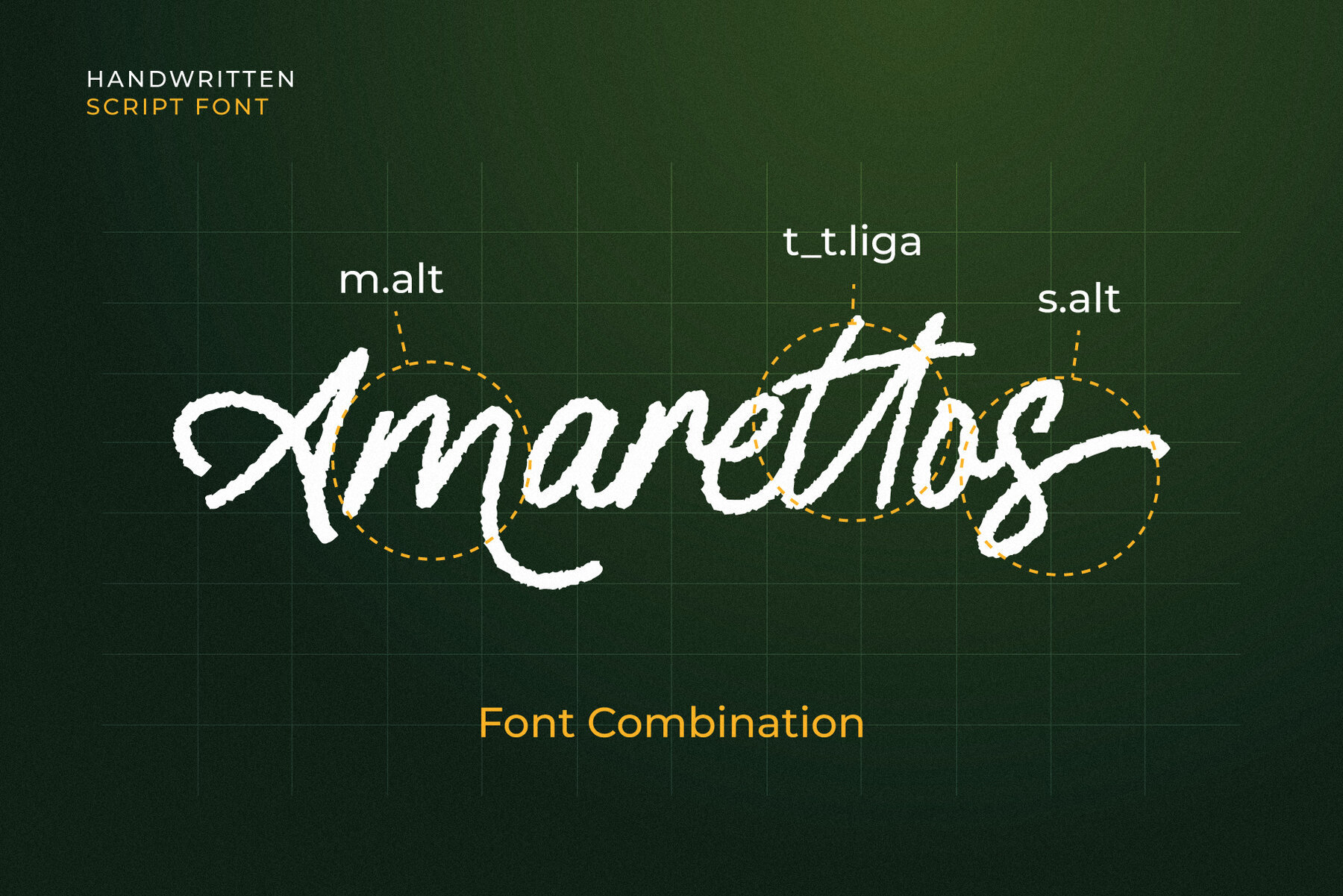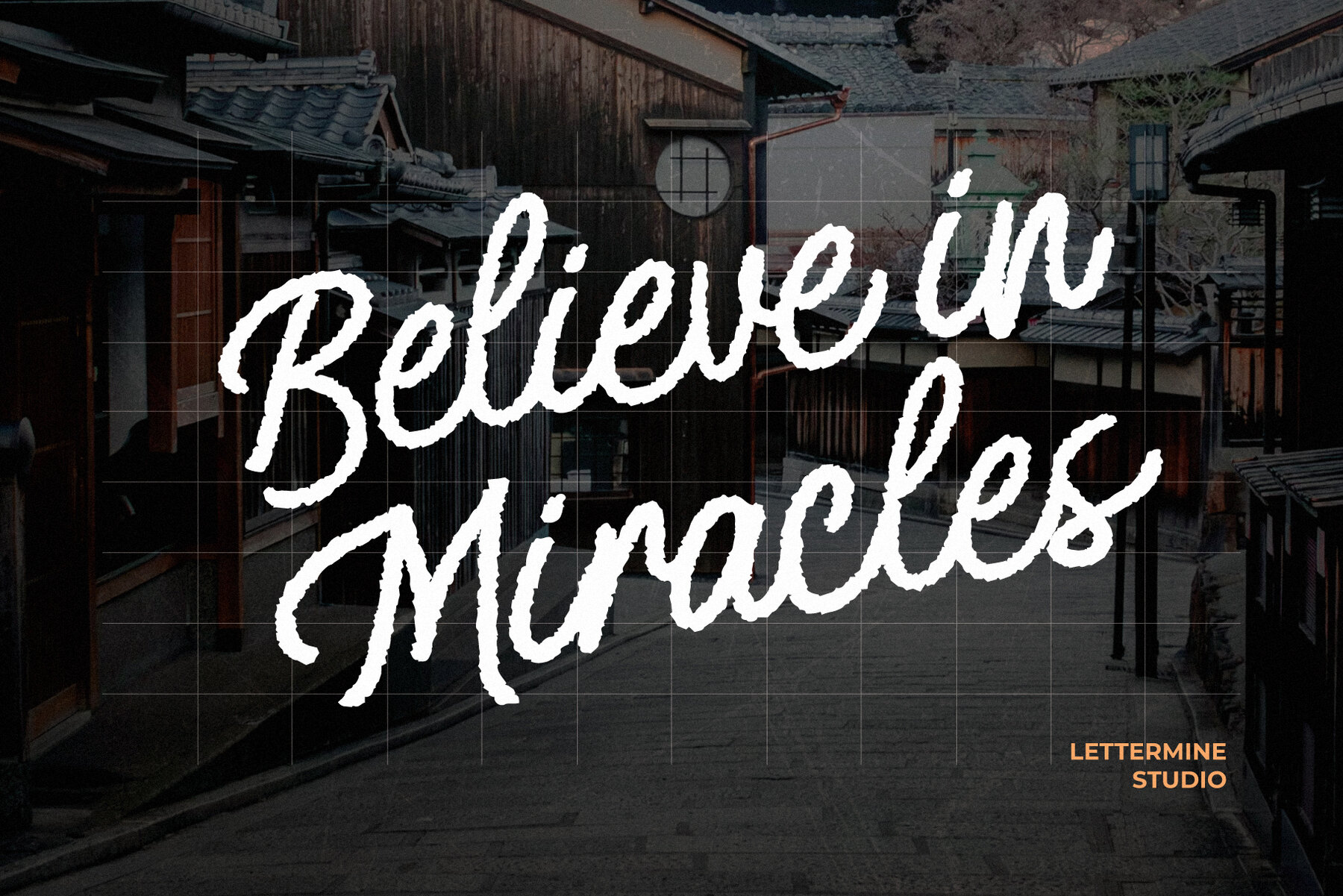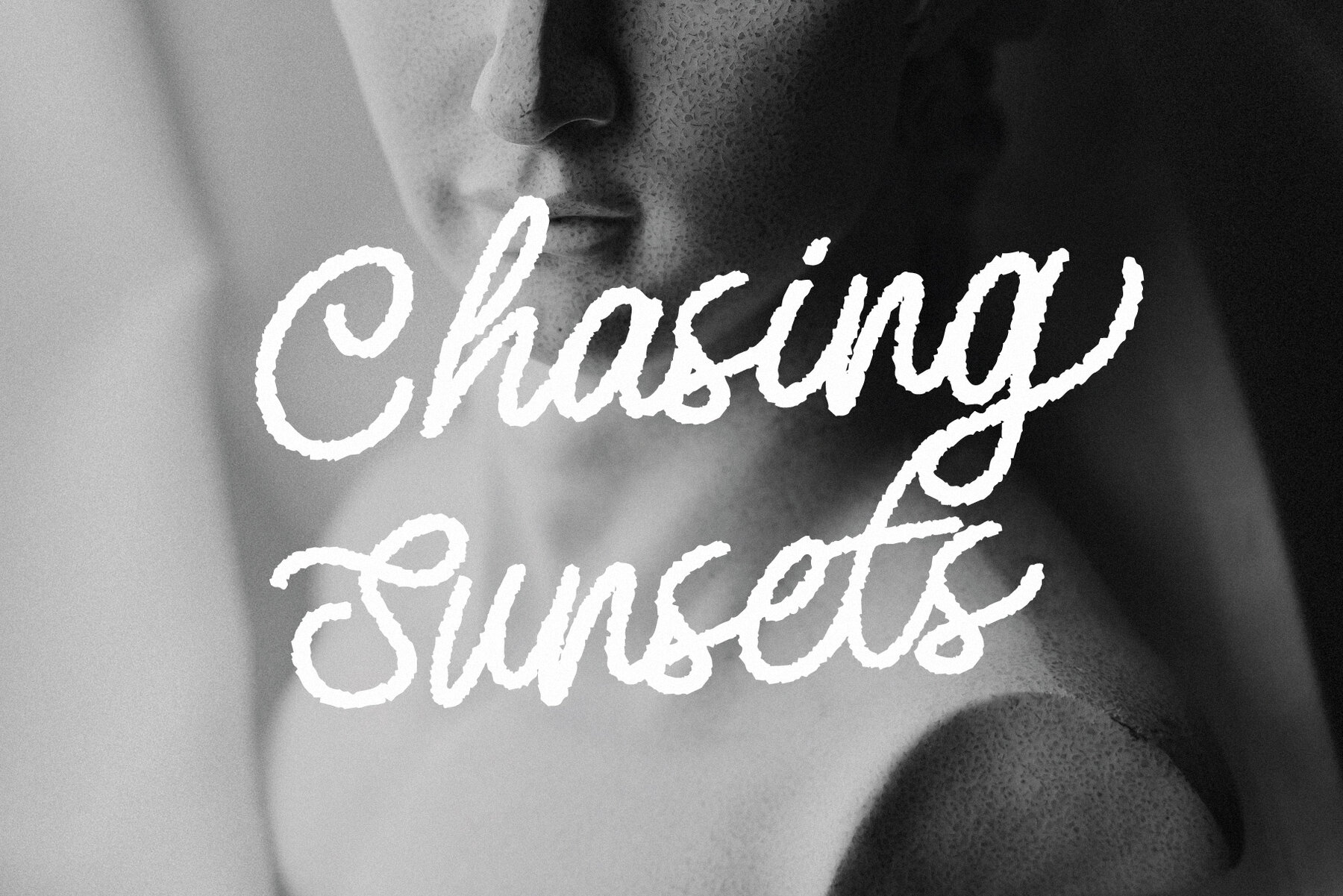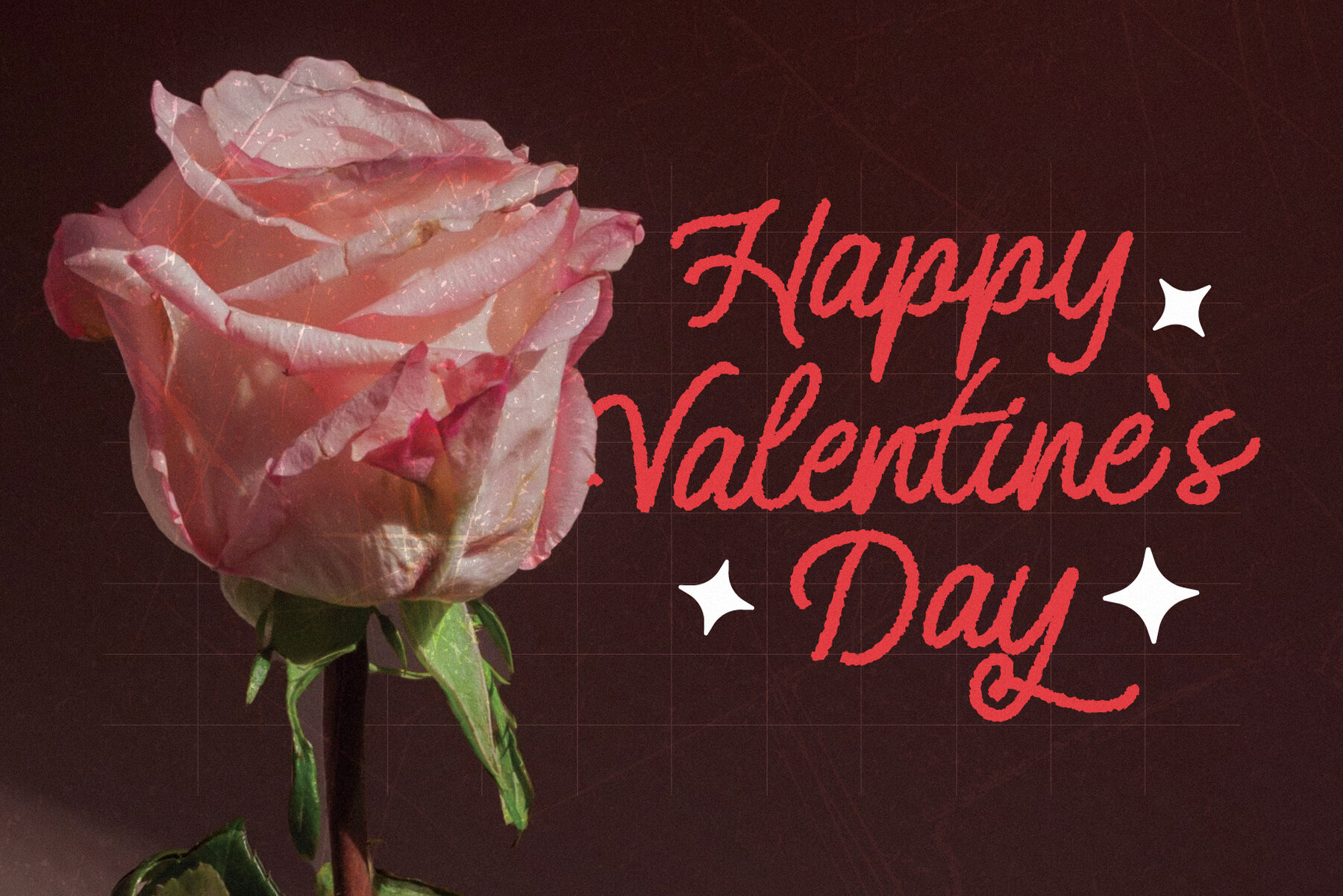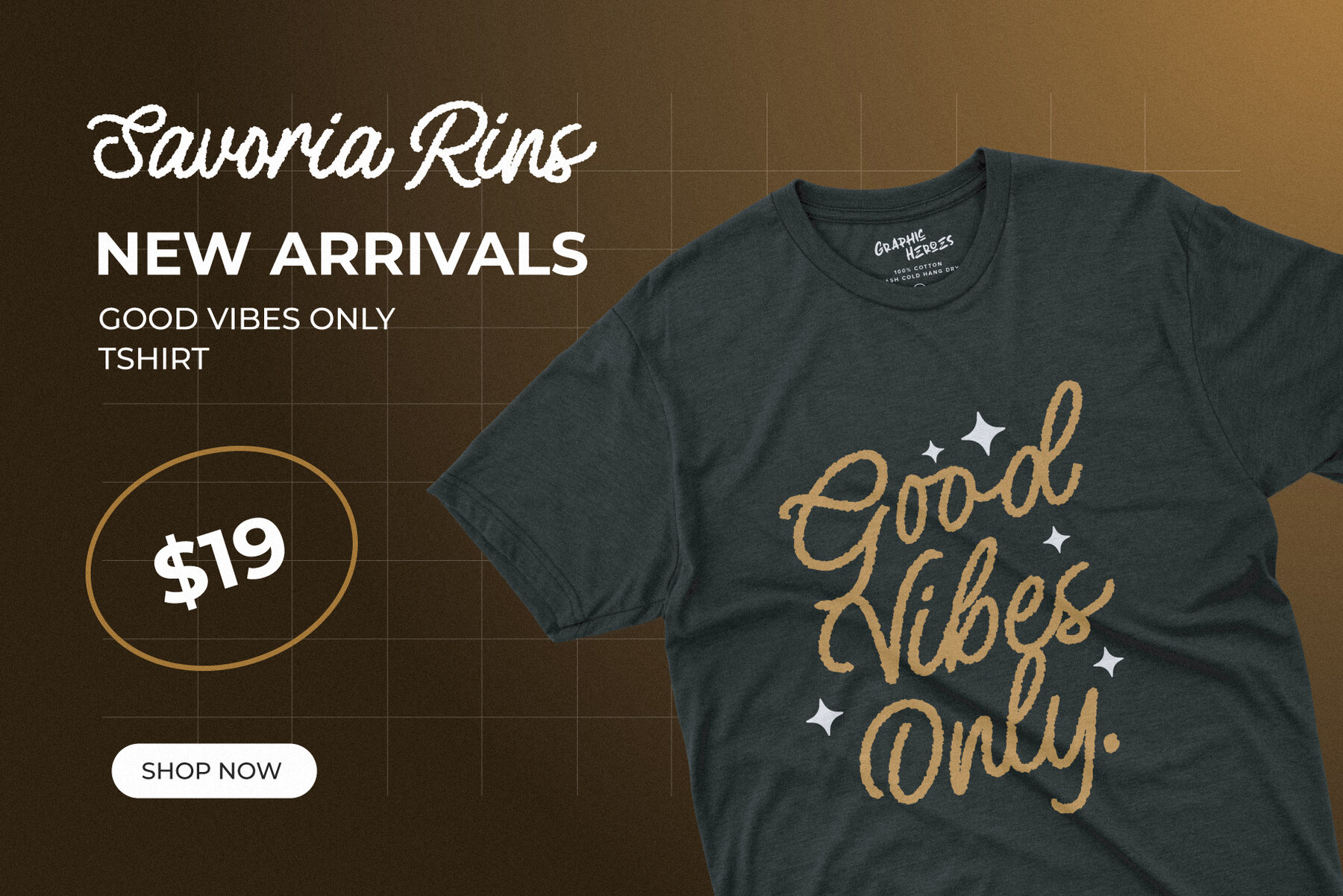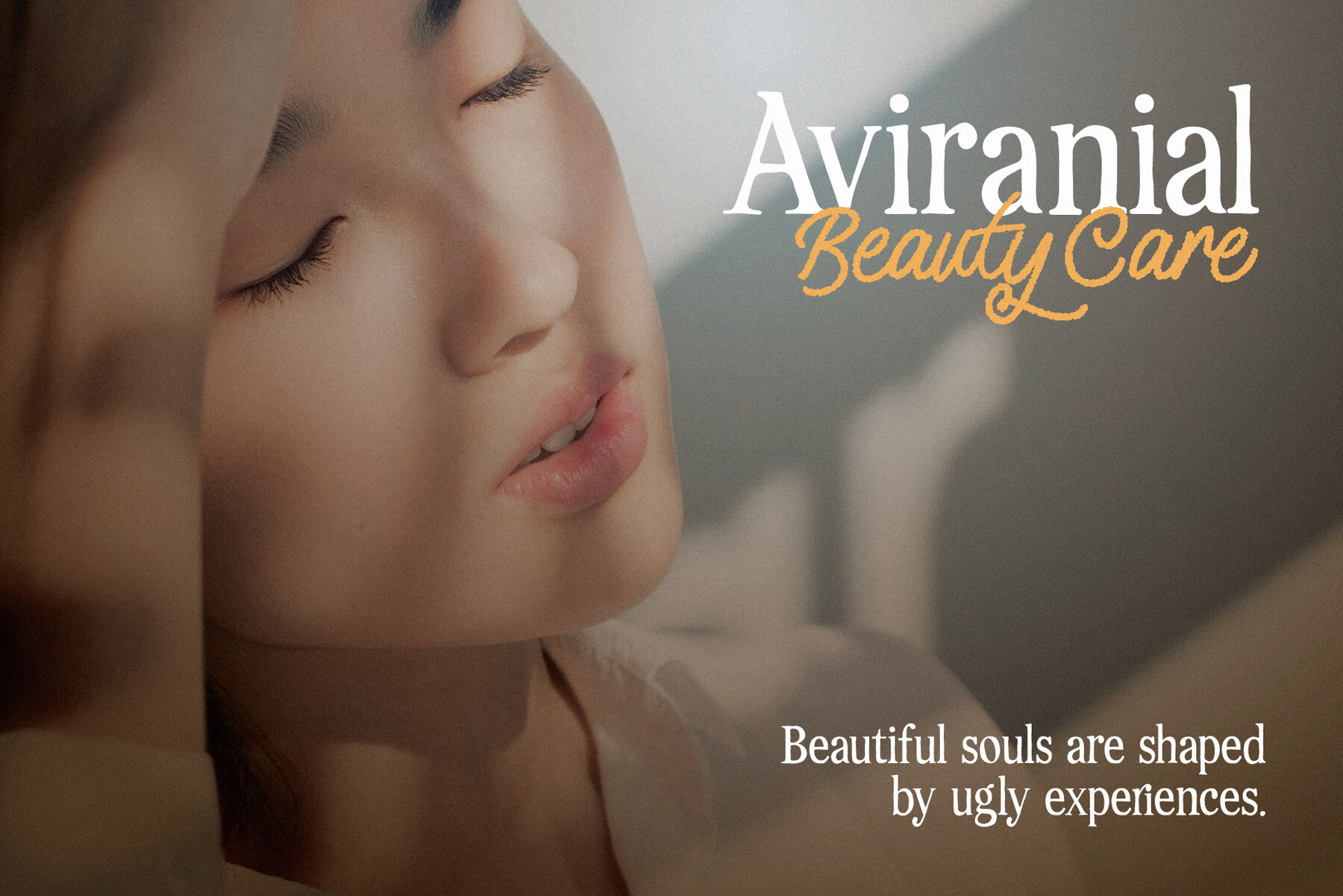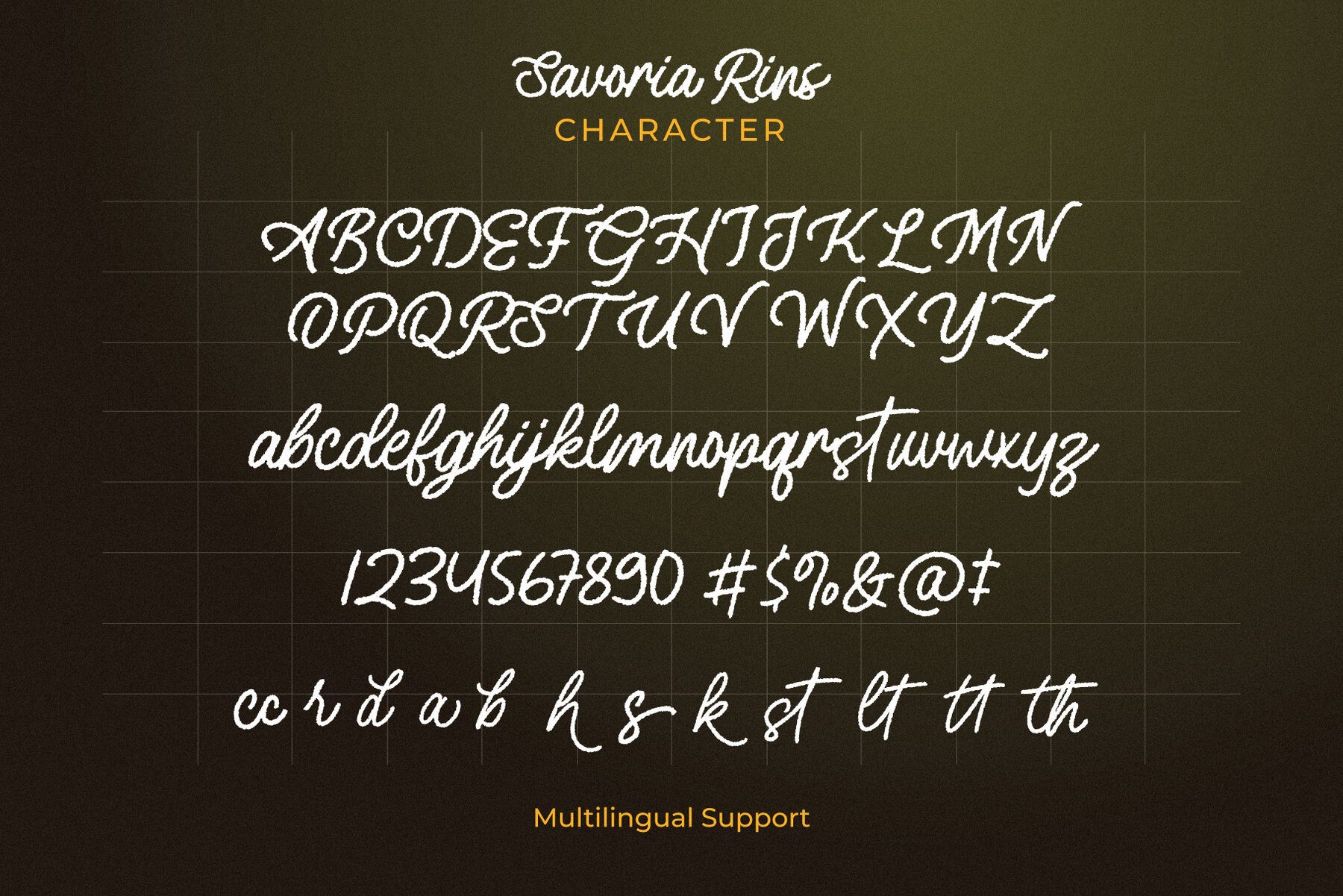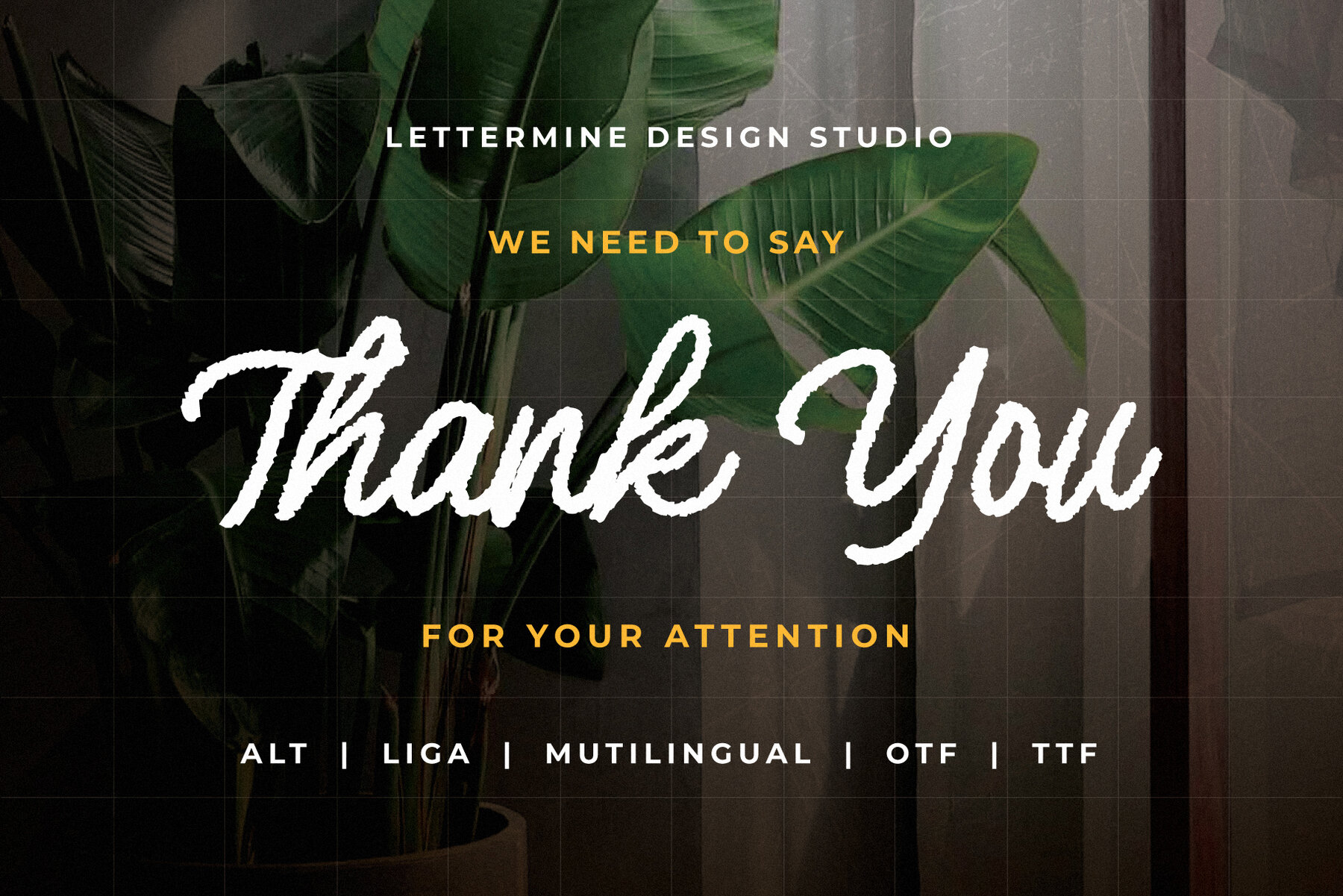
Savoria Rins by Lettermine Studio is a unique script font characterized by its distinctive irregular edges that bring a natural beauty to your designs. This font blends handmade charm with elegance, making it an exceptional choice for diverse creative needs. Whether crafting branding materials, promotional campaigns, or celebratory graphics, Savoria Rins offers the perfect blend of organic beauty and versatility to enhance your projects. Unlock your creativity with Savoria Rins. ----------------------------------------------------------------------------------------------------------------- Copyright © 2024 by Lettermine. All rights reserved. No part or whole of this font may be reproduced or resold.Savoria Rins: Organic Script with Irregular Elegance